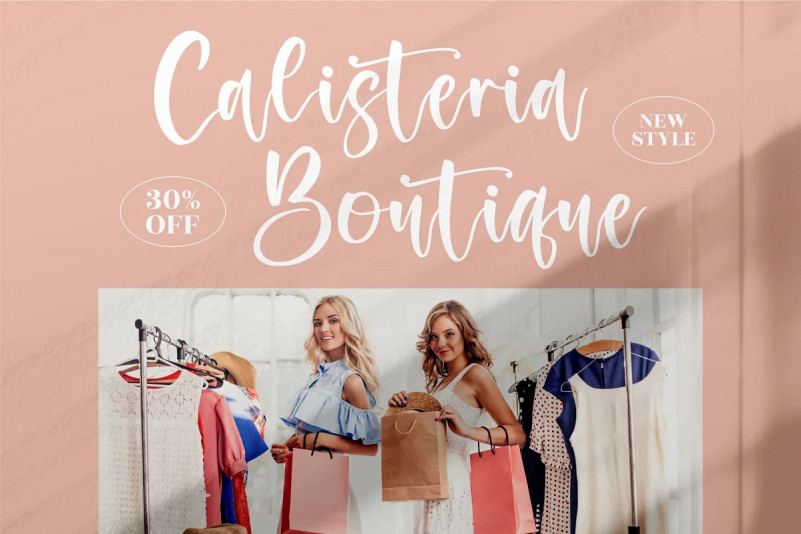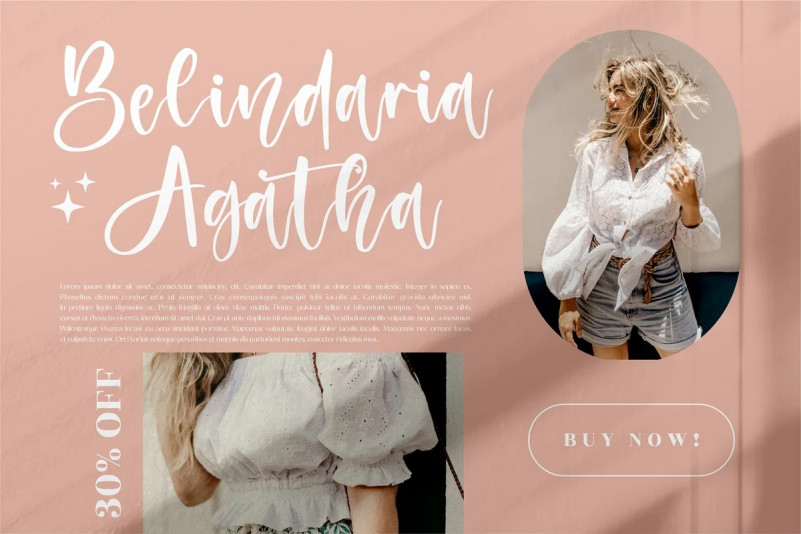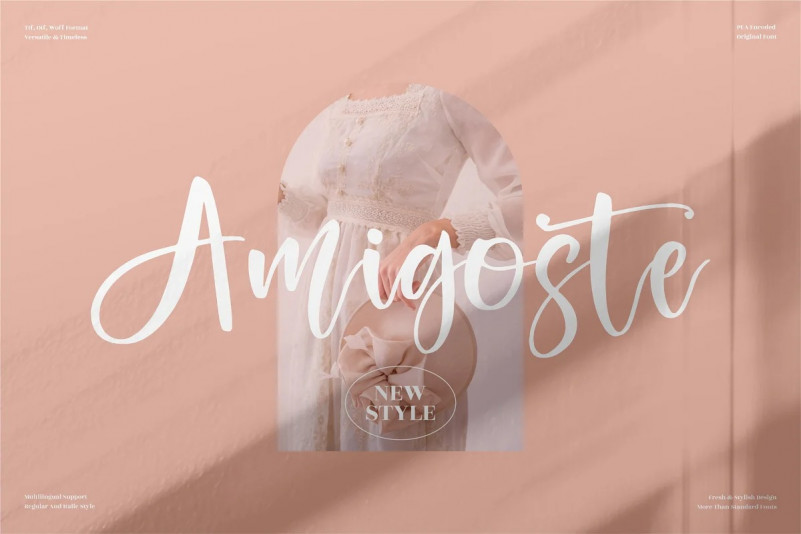
Valkyrian Calligraphy Font
Valkyrian Calligraphy Font is a beautiful pair of font duo. use it for your design and you’ll found its harmonic combination. it contains bonus a butterfly crop, an editable logo, and also free template.